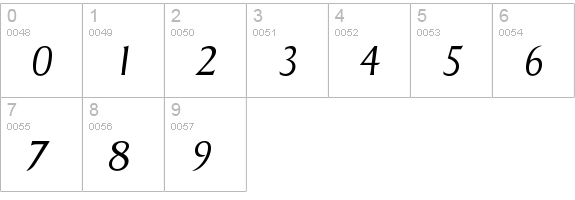
Sigvar-LightIta is a stunningly elegant and refined font that effortlessly brings a touch of sophistication to any design project. Its delicate curves and graceful lines create a sense of timeless beauty, making it the perfect choice for those seeking a font that exudes both style and class. This font is a true testament to the artistry of typography, with its meticulously crafted letterforms and exquisite attention to detail. Each character is expertly designed to flow seamlessly together, resulting in a harmonious and visually pleasing composition. Sigvar-LightIta is versatile and adaptable, lending itself to a wide range of design applications. Whether used for editorial layouts, branding materials, or even digital interfaces, this font adds a touch of elegance and professionalism to any project. One of the standout features of Sigvar-LightIta is its versatility, effortlessly transitioning from formal to informal contexts with ease. Its refined and sophisticated appearance makes it ideal for elegant invitations, luxurious packaging, or even high-end fashion branding. And the best part? Sigvar-LightIta is available to download for free at FontsMarket.com. This means that you can enhance your designs with this exquisite font without having to spend a penny. Simply head over to FontsMarket.com and start exploring the possibilities that Sigvar-LightIta has to offer. In conclusion, Sigvar-LightIta is a font that embodies elegance, refinement, and timeless beauty. Its versatility and stunning design make it a must-have for any designer looking to add a touch of sophistication to their projects. And with its availability as a free download on FontsMarket.com, there's no reason not to give this extraordinary font a try.